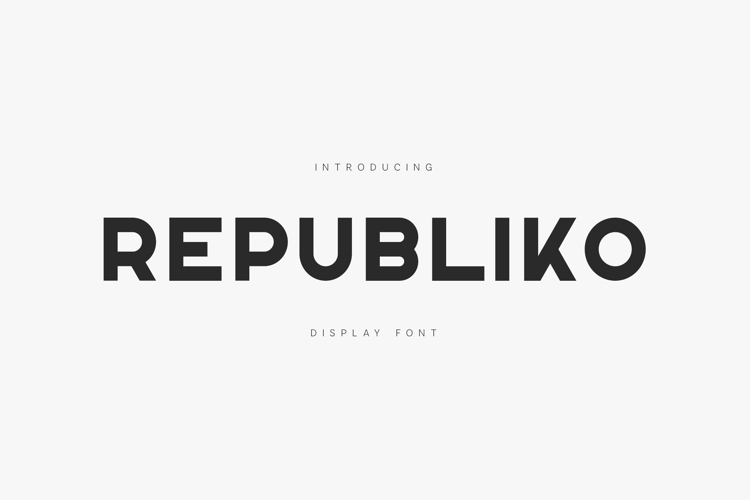
Republiko Modern Bold Display Sans Serif Font
Republiko is a bold, modern display sans serif font designed for strong visual impact and clear communication. With its clean geometry, solid structure, and contemporary character, this typeface is perfect for headlines, branding, posters, editorial layouts, logos, and digital design.
The font includes uppercase and lowercase characters, numerals, punctuation, and extended Latin support, making it suitable for both creative and professional projects. Republiko balances minimalism and strength, delivering confident typography that works beautifully across print and digital media.
Ideal for designers looking for a versatile bold font that feels modern, timeless, and highly usable.